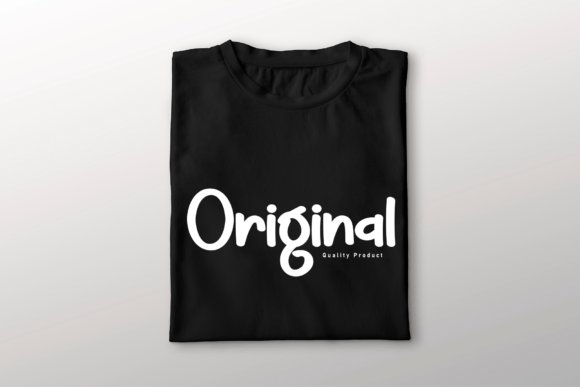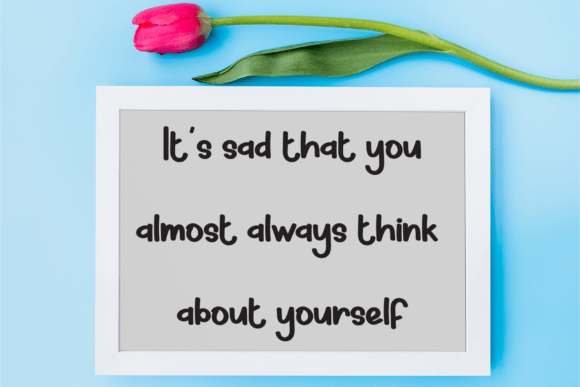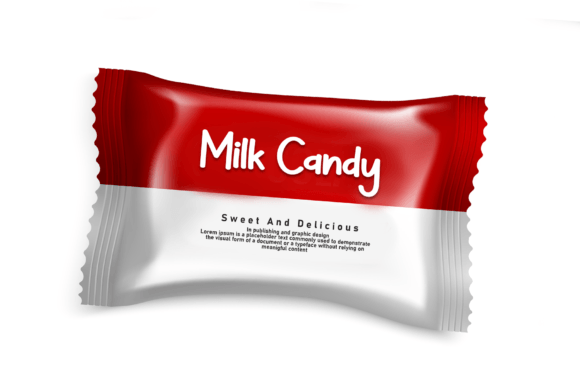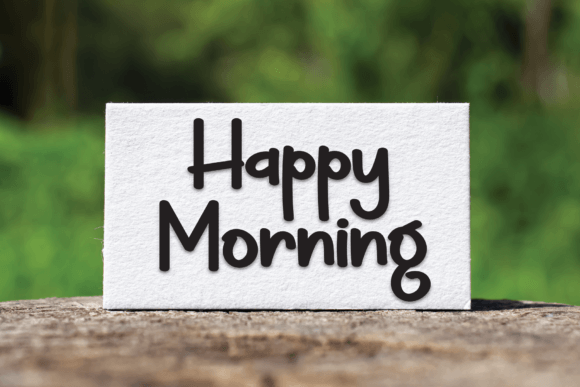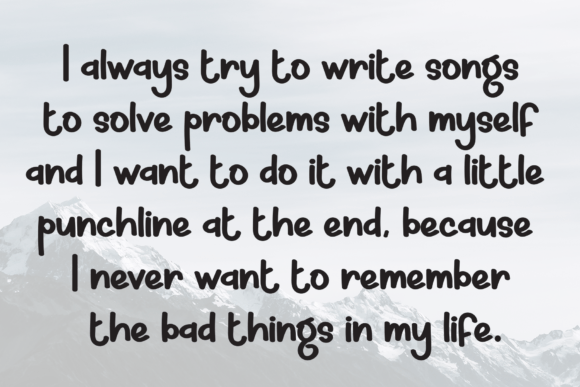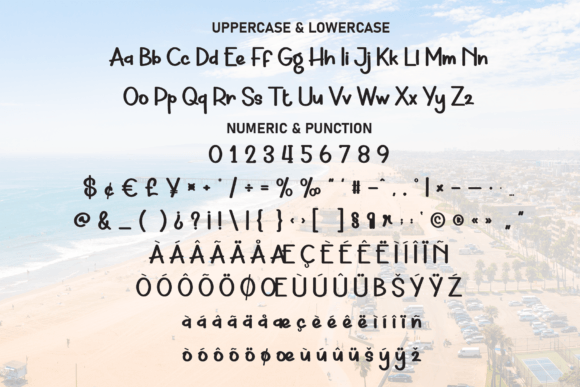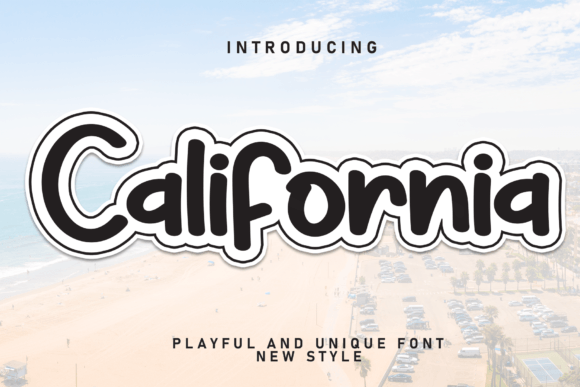
Introducing California Font: The Perfect Blend of Relaxation and Playfulness
Are you tired of using fonts that are too formal or rigid? Look no further than California Font, a casual handwritten font that brings a relaxed and playful vibe to any project. With its bold, approachable letterforms, California Font is perfect for headlines, posters, and branding. In this article, we’ll dive into the world of California Font and explore its unique features, benefits, and uses.
The Essence of California Font
California Font is a carefully crafted font that embodies the laid-back spirit of California. Its easygoing style effortlessly captures a sense of fun and spontaneity, making it perfect for creative projects that require a touch of personality. The font’s bold letterforms are approachable and friendly, making it ideal for headlines, titles, and branding. Whether you’re working on a poster, flyer, or website, California Font is sure to add a dash of playfulness and creativity.
Key Features of California Font
- Handwritten style: California Font is a handwritten font that brings a personal touch to any project.
- Bold and approachable letterforms: The font’s bold letterforms are easy to read and add a touch of confidence to any design.
- Relaxed and playful vibe: California Font’s easygoing style captures a sense of fun and spontaneity, making it perfect for creative projects.
- Perfect for headlines and branding: The font’s bold and approachable letterforms make it ideal for headlines, titles, and branding.
Benefits of Using California Font
So, why choose California Font for your next project? Here are just a few benefits of using this amazing font:
- Adds a touch of personality: California Font brings a personal touch to any project, making it stand out from the crowd.
- Effortlessly conveys a sense of fun: The font’s playful vibe captures a sense of spontaneity and fun, making it perfect for creative projects.
- Versatile: California Font can be used for a wide range of projects, from posters and flyers to branding and websites.
- Easy to read: The font’s bold and approachable letterforms make it easy to read, even at smaller sizes.
Uses of California Font
So, what can you use California Font for? The possibilities are endless! Here are just a few ideas to get you started:
- Posters and flyers: California Font is perfect for creating eye-catching posters and flyers that grab attention.
- Branding and logos: The font’s bold and approachable letterforms make it ideal for branding and logos.
- Websites and blogs: California Font can add a touch of personality to any website or blog.
- Social media graphics: The font’s playful vibe makes it perfect for social media graphics, such as Instagram posts and Facebook headers.
Tips for Using California Font
Here are a few tips for getting the most out of California Font:
- Use it boldly: California Font is designed to be bold and attention-grabbing, so don’t be afraid to use it in large sizes.
- Pair it with contrasting fonts: California Font pairs well with contrasting fonts, such as serif or sans-serif fonts.
- Experiment with colors: The font’s playful vibe lends itself well to bright and bold colors.
In conclusion, California Font is a unique and versatile font that brings a relaxed and playful vibe to any project. With its bold, approachable letterforms and easygoing style, it’s perfect for headlines, posters, and branding. Whether you’re a designer, crafter, or DIY enthusiast, California Font is sure to add a touch of personality and creativity to your work. So why not give it a try and see the difference it can make?